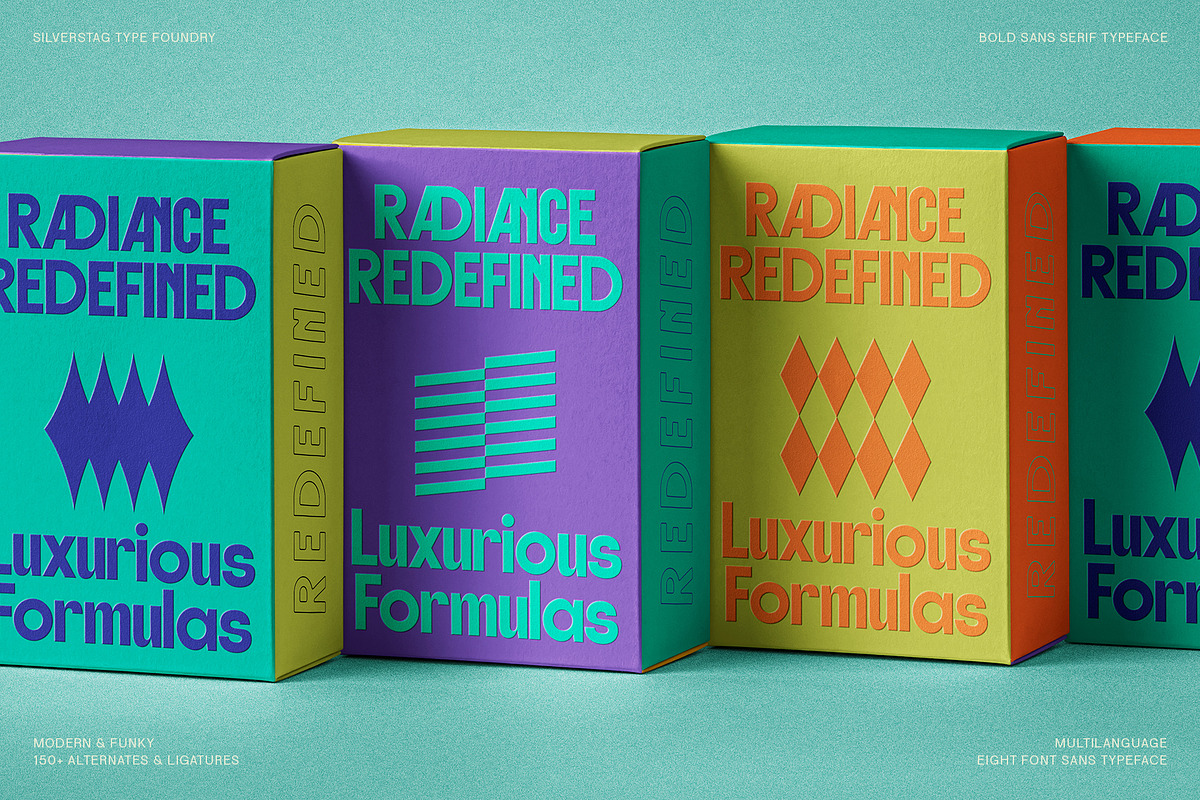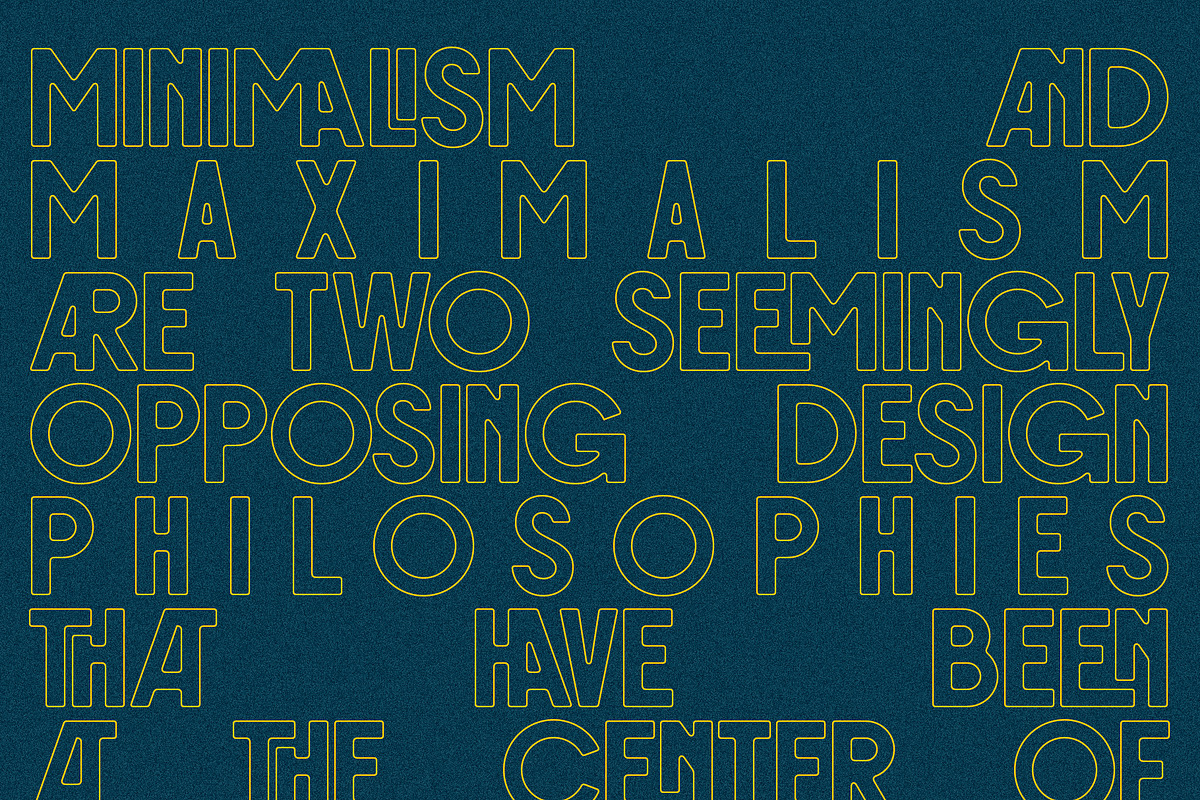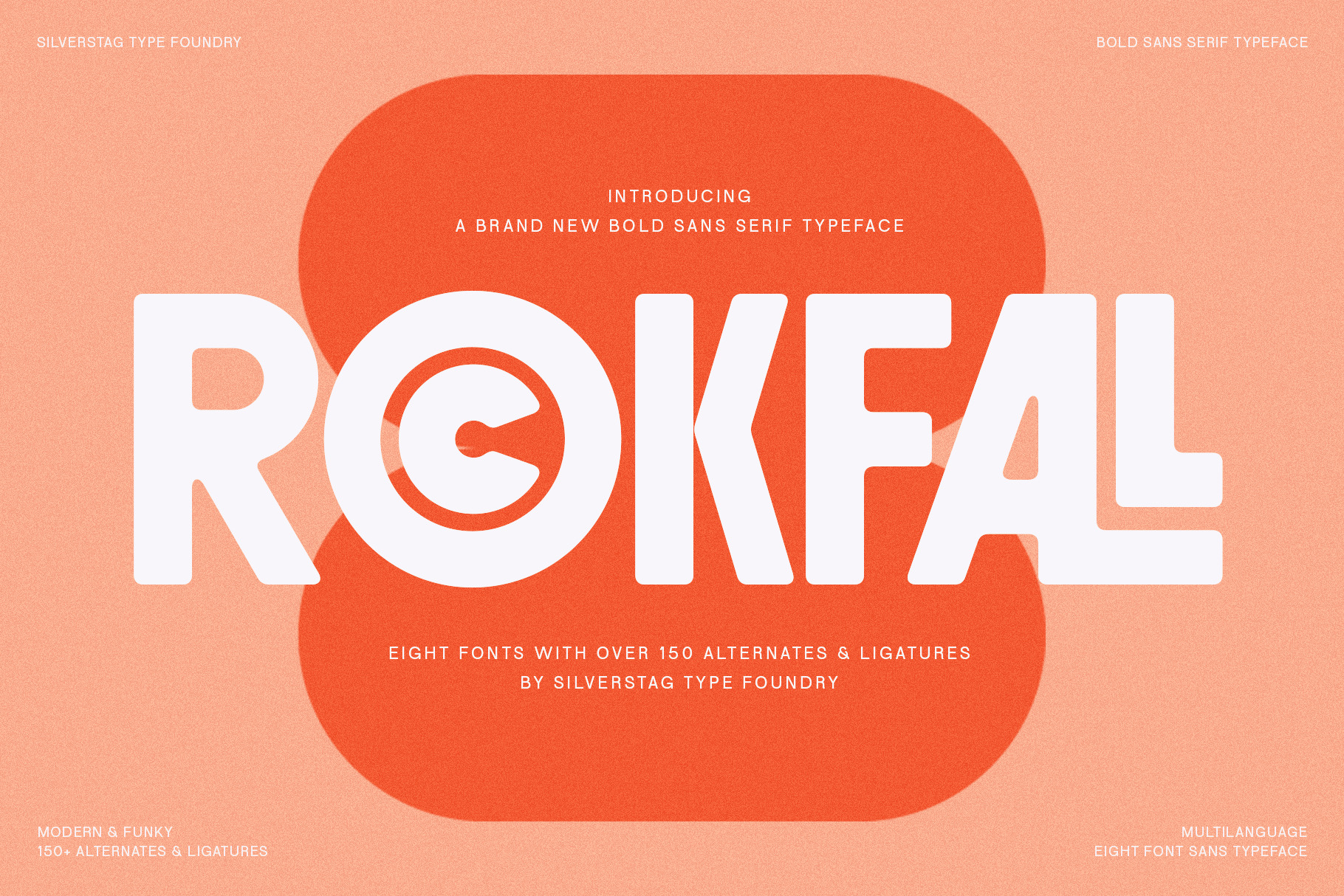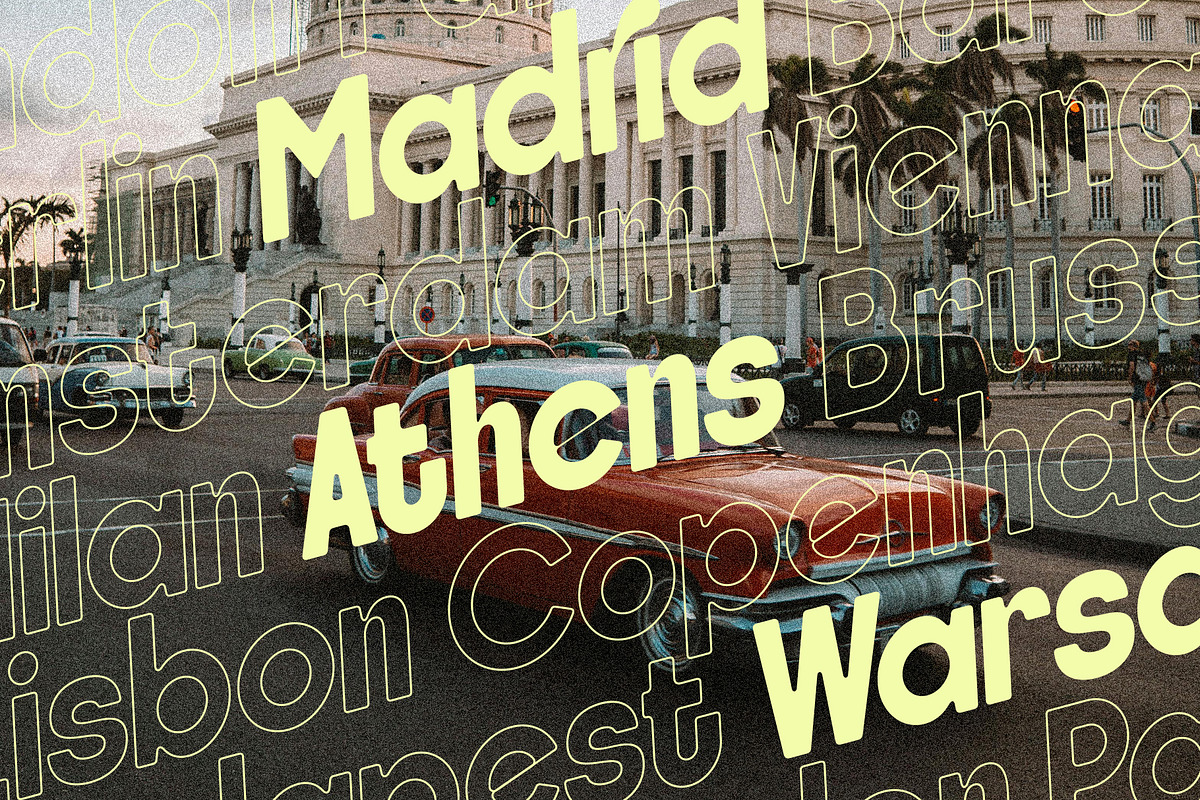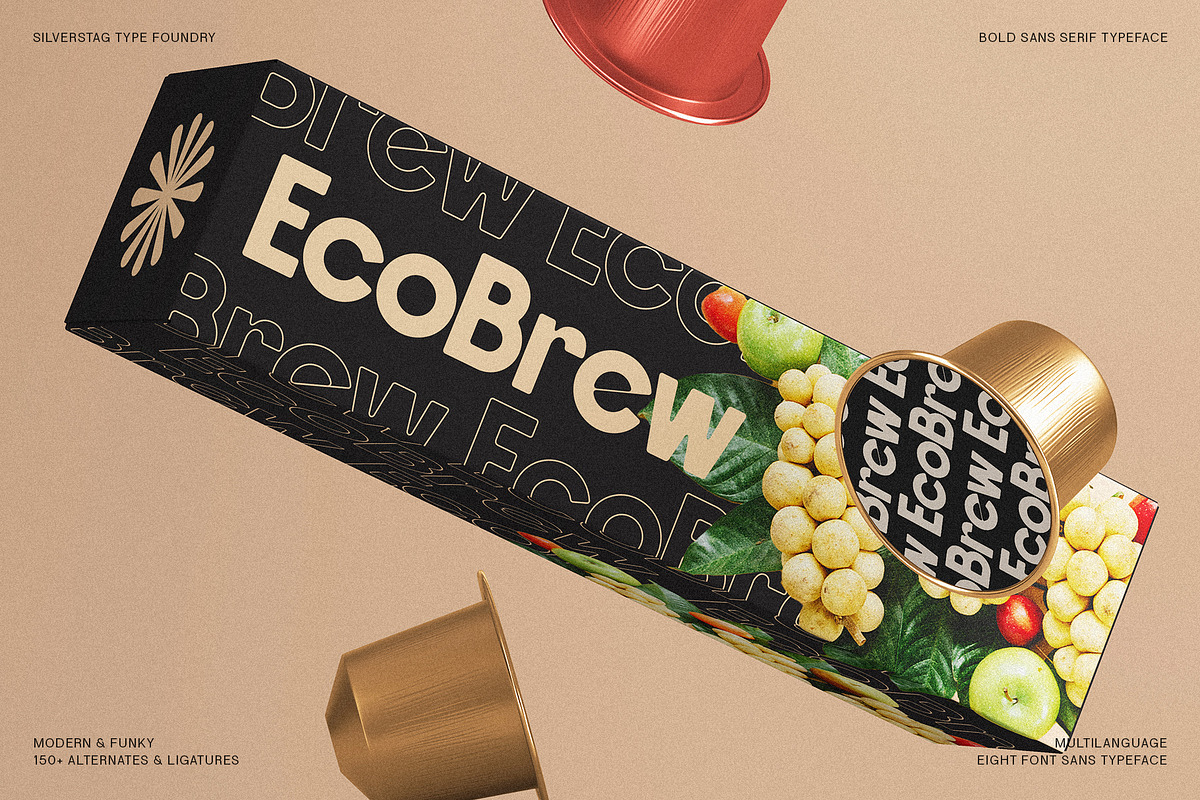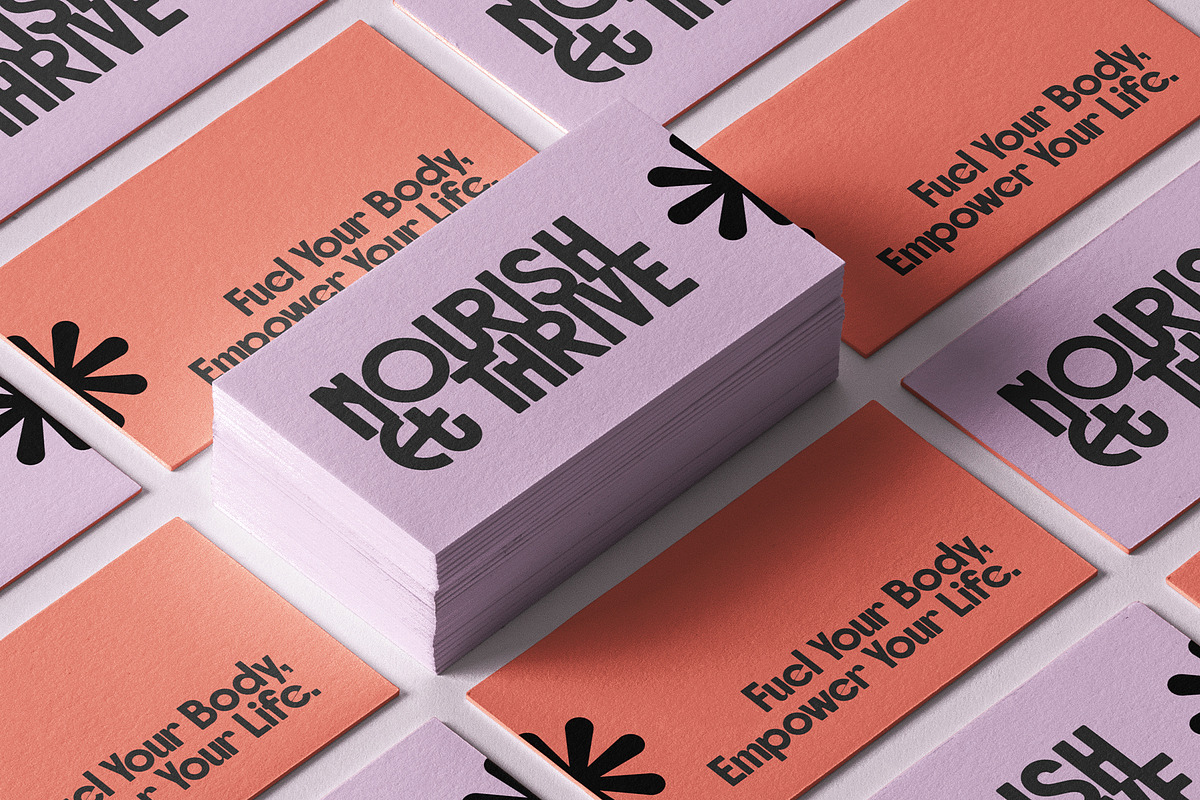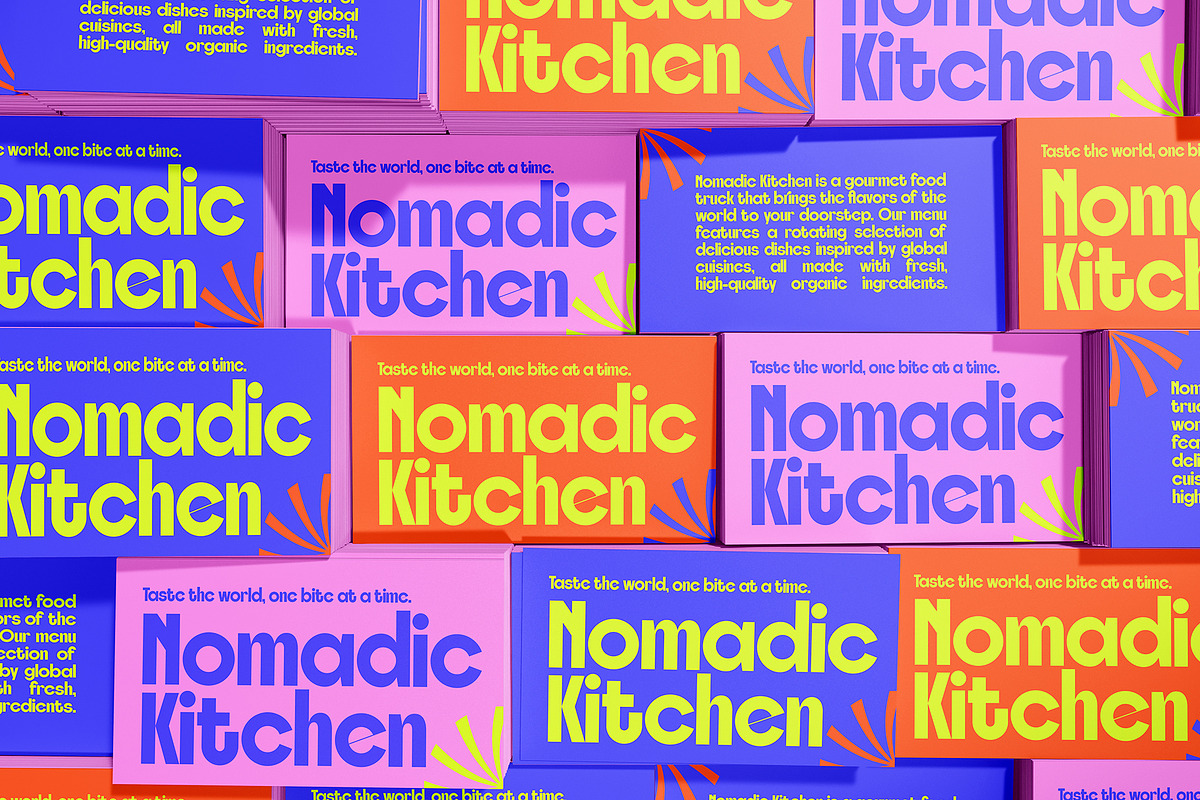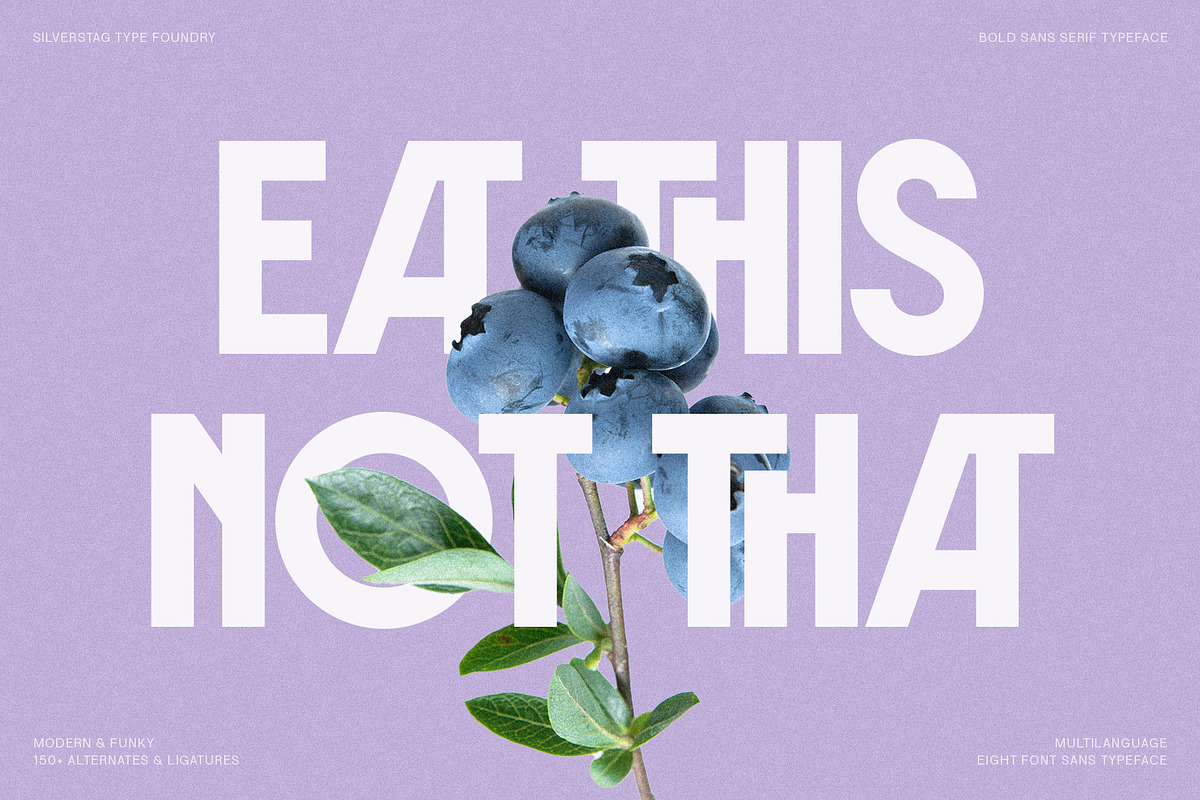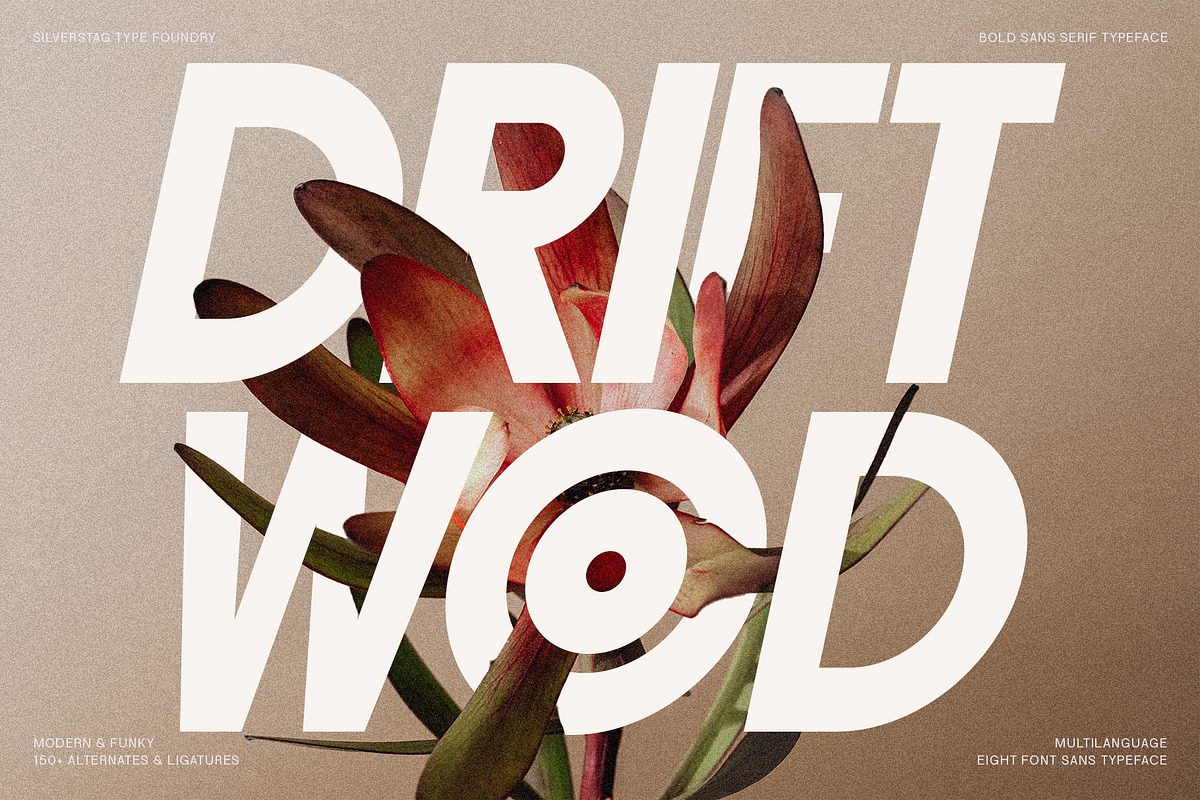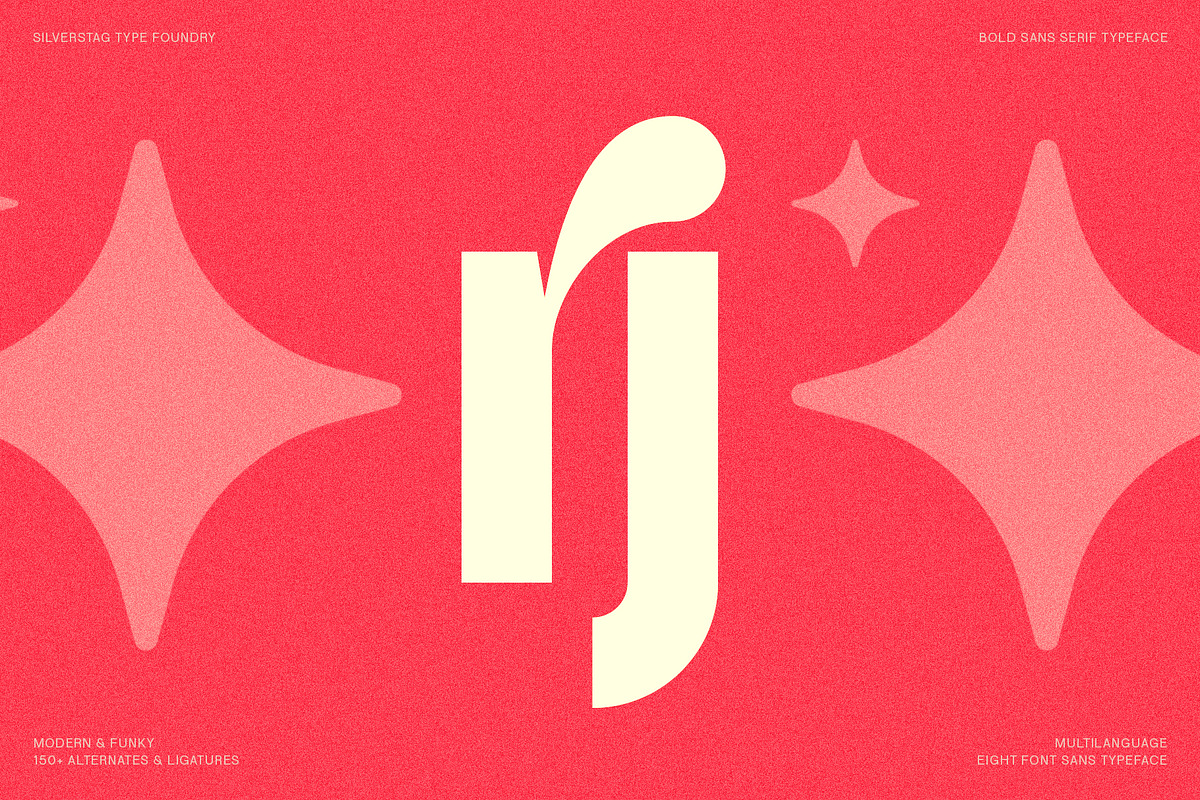
ROCKFALL - Bold Ligature Typeface
Introducing Rockfall - A Bold Retro Typeface
Channel the raw energy of the 70s with Rockfall, a bold retro typeface that commands attention. Inspired by iconic rock posters and vintage signage, Rockfall's chunky and powerful lines capture the essence of a rebellious era. Each character is meticulously crafted to evoke a sense of nostalgia and rebellion, perfect for capturing the spirit of classic rock posters, vintage logos, and bold headlines.
Rockfall's extensive language support (over 90 languages), 150 alternate letters and ligatures, and 8 versatile font versions (Regular, Round, Regular Outlined, Round Outlined, and Italics for each) give you unparalleled creative control. Mix and match styles to create unique combinations that perfectly fit your vision. Whether you're designing a band poster, a retro-inspired website, or a bold apparel design, Rockfall delivers a punch of personality that will resonate with your audience.
Possible Use Cases:
- Music Industry: Band posters, album covers, concert merchandise, music festival branding
- Apparel Design: Vintage-inspired t-shirts, retro logos, bold slogans
- Branding & Marketing: Logos, packaging, social media graphics, website headlines
- Print & Digital Media: Magazine layouts, book covers, advertising campaigns, online banners
- Personal Projects: Invitations, greeting cards, scrapbooks, digital art
Embrace the spirit of rock and roll with Rockfall. Infuse your designs with the energy and attitude of a bygone era. Let Rockfall be the voice of your next project.